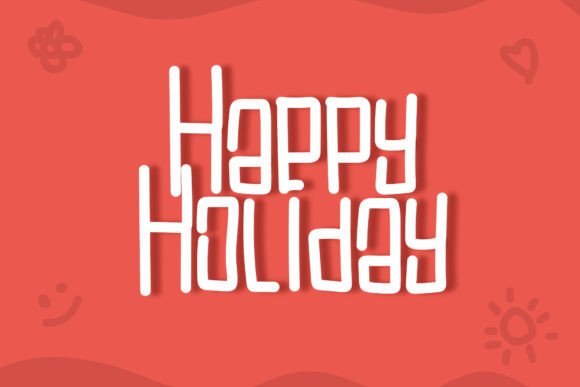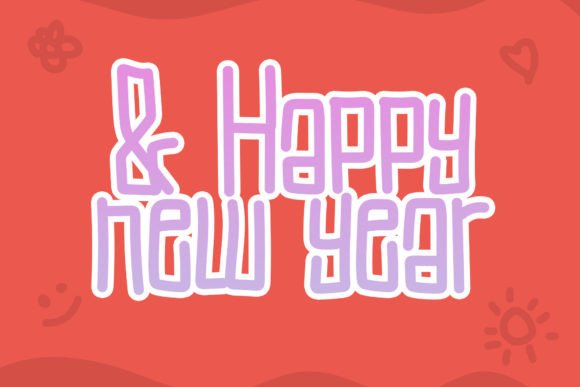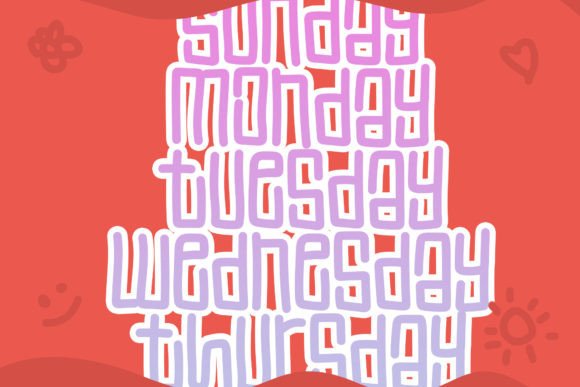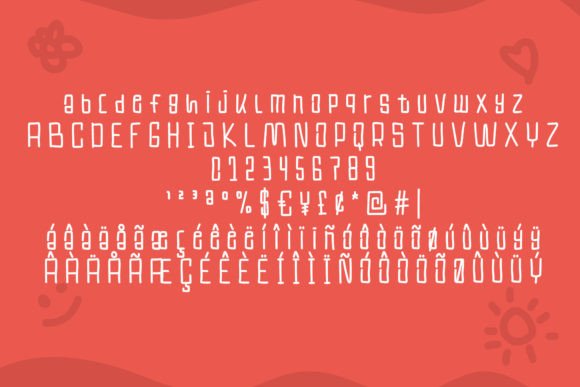
Introducing Cutelines Font: The Ultimate Display Font for Creative Designs
Are you a designer, crafter, or social media enthusiast looking for a unique and versatile font to elevate your visual creations? Look no further than Cutelines Font, a stunning display font featuring monoline lines that will take your designs to the next level. In this article, we’ll explore the features, benefits, and uses of Cutelines Font, and why it’s a must-have for any creative project.
What is Cutelines Font?
Cutelines Font is a carefully crafted display font designed with monoline lines, giving it a sleek, modern, and sophisticated look. Its unique design makes it perfect for a wide range of applications, from social media graphics and product designs to clothing and craft projects. With Cutelines Font, you can add a touch of elegance and style to your creations, setting them apart from the rest.
Key Features of Cutelines Font
- Monoline Lines: Cutelines Font features monoline lines, which give it a clean, minimalist, and modern look.
- Display Font: Designed specifically as a display font, Cutelines Font is perfect for headlines, titles, and short text snippets.
- Versatile: Cutelines Font can be used in various design projects, including social media graphics, product designs, clothing, crafts, and more.
- Easy to Read: Despite its unique design, Cutelines Font remains easy to read, making it perfect for short text snippets and titles.
Benefits of Using Cutelines Font
So, why should you choose Cutelines Font for your design projects? Here are just a few benefits:
- Unique Look: Cutelines Font offers a distinctive look that will set your designs apart from others.
- Time-Saving: With Cutelines Font, you can create stunning designs quickly and easily, without spending hours on complicated design elements.
- Customizable: Cutelines Font can be easily customized to fit your brand’s style and aesthetic, making it perfect for consistent branding.
Uses of Cutelines Font
Cutelines Font is an incredibly versatile font that can be used in a wide range of design projects, including:
- Social Media Graphics: Use Cutelines Font to create eye-catching social media graphics, including Facebook posts, Instagram stories, and Twitter headers.
- Product Designs: Add a touch of style to your product designs, including packaging, labels, and branding materials.
- Clothing Designs: Cutelines Font is perfect for clothing designs, including t-shirts, hoodies, and other apparel.
- Crafts: Use Cutelines Font to add a personal touch to your craft projects, including handmade cards, gift tags, and decorations.
Tips for Using Cutelines Font
To get the most out of Cutelines Font, here are a few tips:
- Keep it Simple: Cutelines Font is best used for short text snippets and titles, so keep your design simple and concise.
- Experiment with Colors: Try out different color combinations to find the perfect match for your design and brand.
- Pair with Other Fonts: Cutelines Font pairs well with other fonts, so feel free to experiment with different font combinations to create a unique look.
Cutelines Font is a stunning display font featuring monoline lines, perfect for a wide range of design projects. With its unique look, versatility, and ease of use, Cutelines Font is a must-have for any designer, crafter, or social media enthusiast. Whether you’re looking to create stunning social media graphics, product designs, clothing, or crafts, Cutelines Font is the perfect choice. So why wait? Download Cutelines Font today and take your designs to the next level!